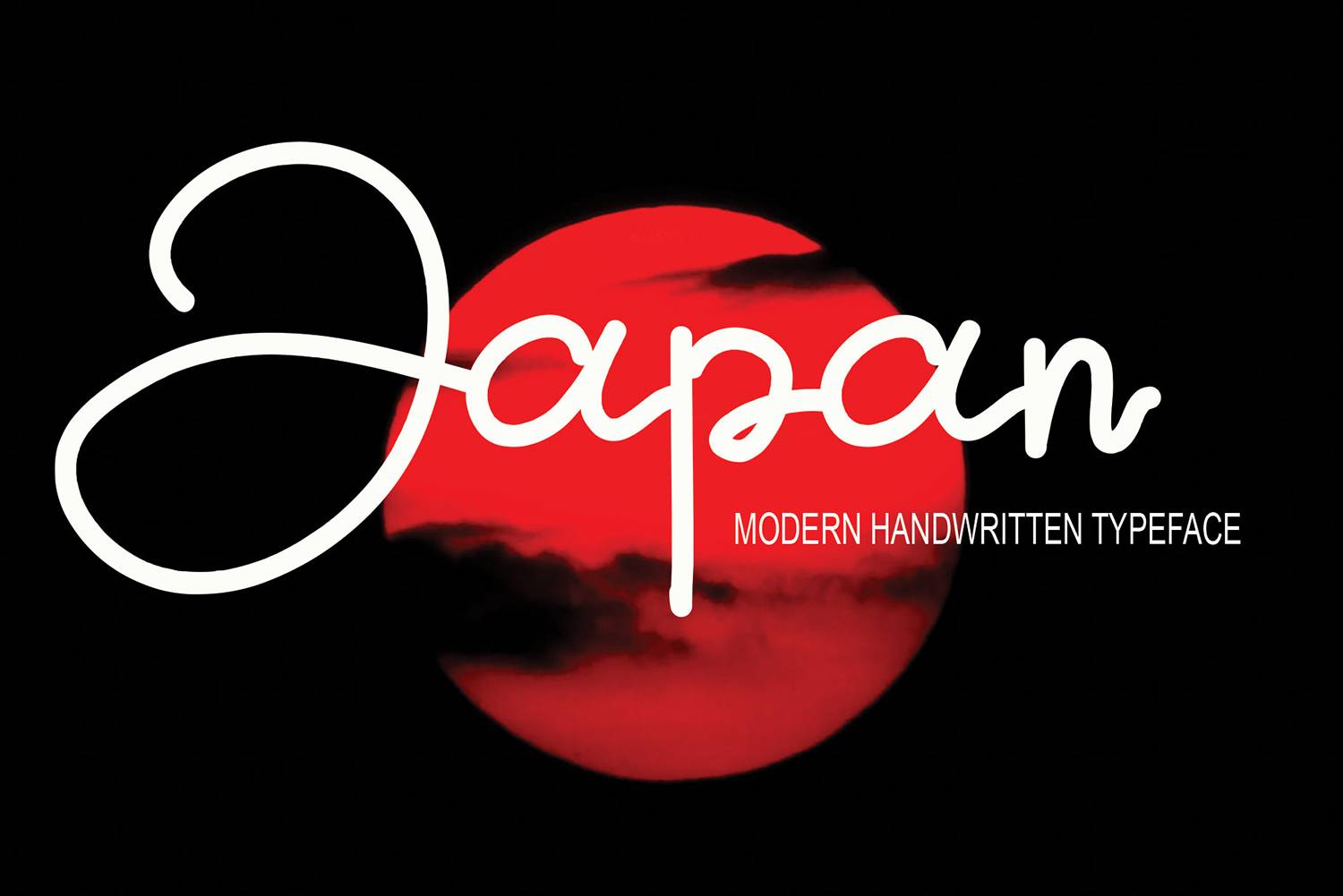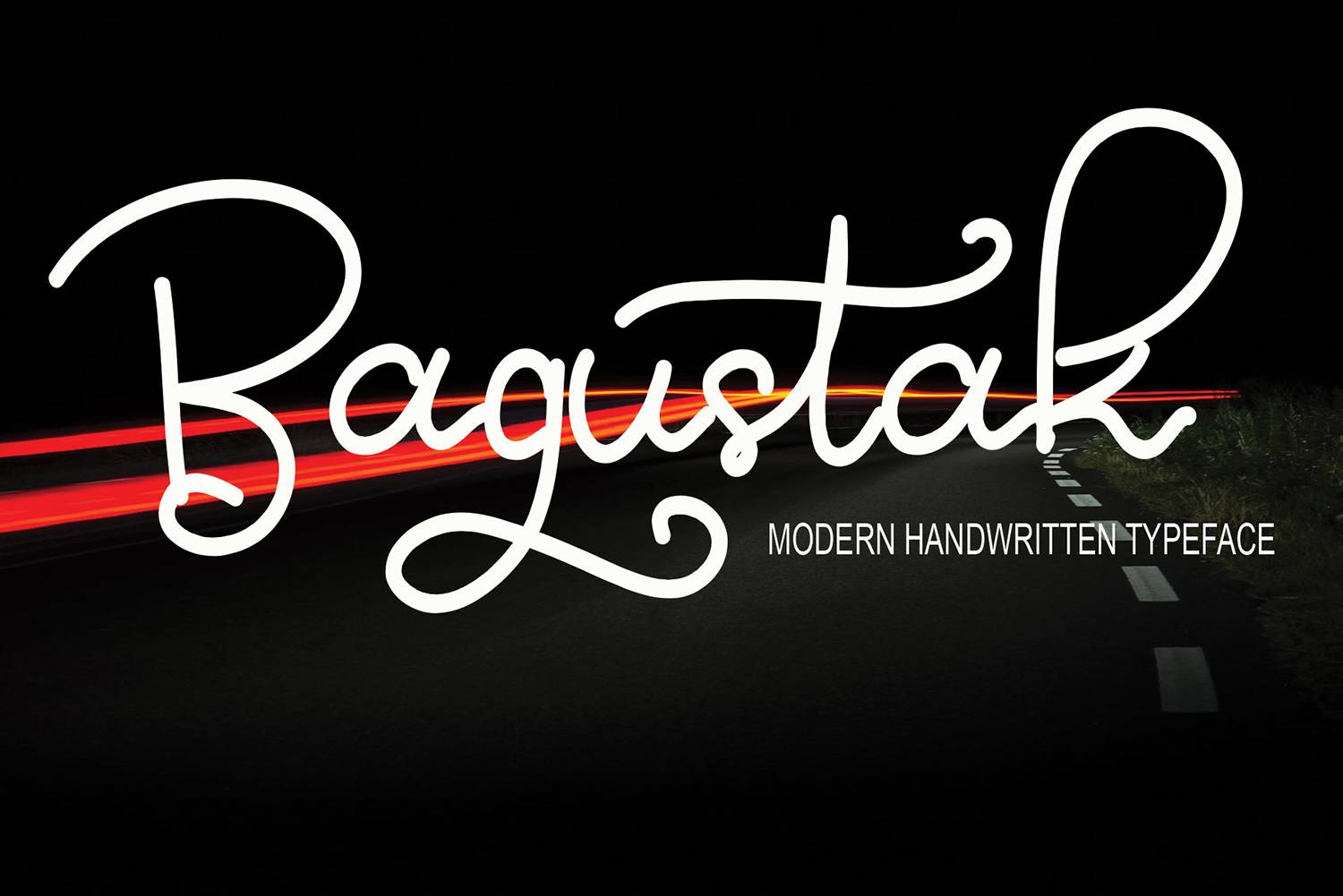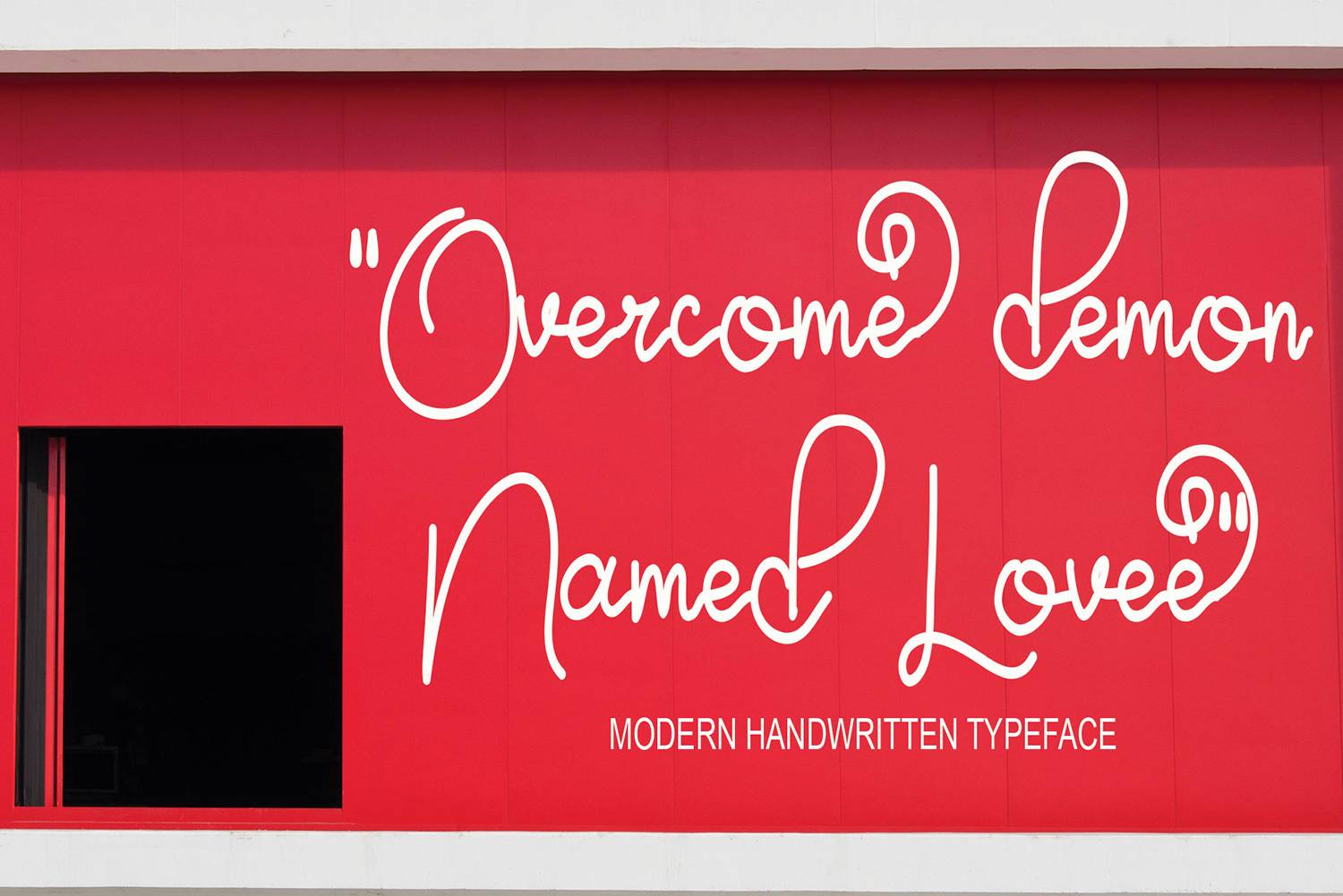
Matamu is a playful and elegant handwritten script font with a light, airy feel and smooth, flowing strokes. Its unique letterforms feature a mix of round curves and delicate loops, giving it a casual yet refined personality perfect for creative branding, invitations, and personal projects. This font works best in settings that seek a friendly, approachable touch with a touch of sophistication.
Matamu Font
About Matamu Font
| Font family | Matamu Font |
| Release date | 2022-09-18 |
| Designer | Canden Meutuah |